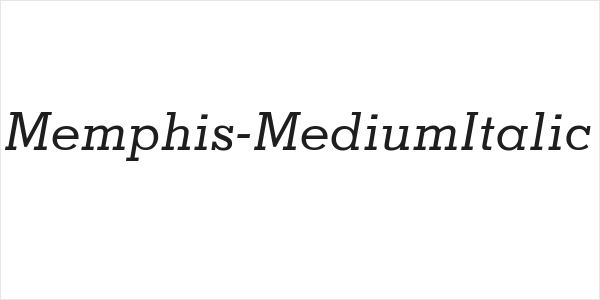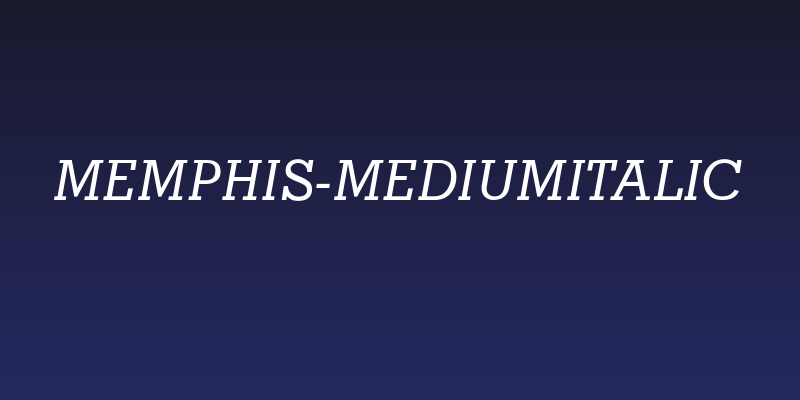
Memphis-MediumItalic Font
Memphis-MediumItalic Description
This font exhibits a classic serif style with a medium weight and italicized form, offering a sophisticated and elegant appearance. The characters are well-defined with moderate contrast in stroke thickness, providing a balanced and readable text. The serifs are pronounced, adding a traditional touch, while the italic slant gives it a dynamic and flowing aesthetic. The spacing between characters is normal, ensuring clarity and legibility across various sizes. This font is versatile, suitable for both formal and creative applications, making it ideal for projects that require a touch of refinement and style.
| Proposed Projects | Ideal for editorial design, book covers, invitations, and branding projects that require a classic and sophisticated look. |